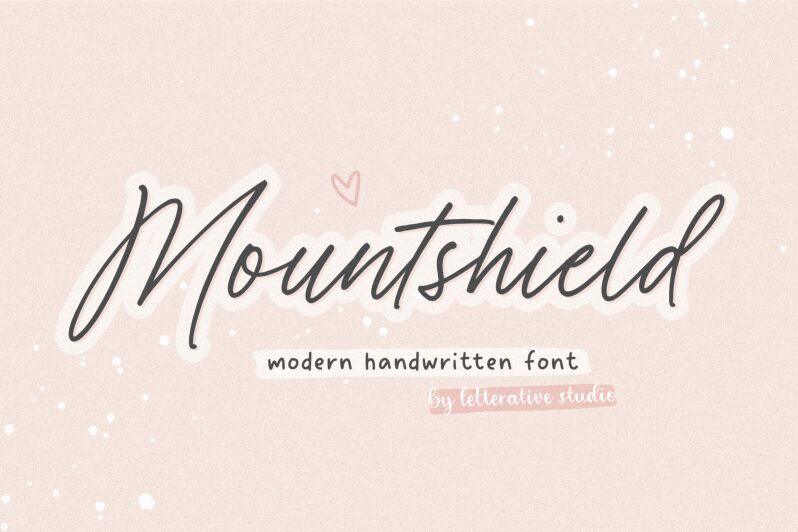
Mountshield
Mountshield, a handwritten font crafted by Letterative Studio, exudes a captivating blend of elegance and informality. Its light, organic strokes convey a sense of warmth and authenticity, lending a touch of artisanal charm to any design. The fluid, expressive letterforms evoke a sense of spontaneity, while the well-balanced proportions maintain a refined, cohesive aesthetic.
This versatile font showcases its versatility across a wide range of applications, from invitations and stationery to branding and packaging. Its natural, handcrafted feel lends itself seamlessly to projects that require a personal, handwritten touch, imbuing them with a sense of authenticity and charm. Whether you're creating editorial layouts, crafting heartfelt wedding suites, or designing captivating product labels, Mountshield by Letterative Studio is a compelling choice that can elevate your design vision.